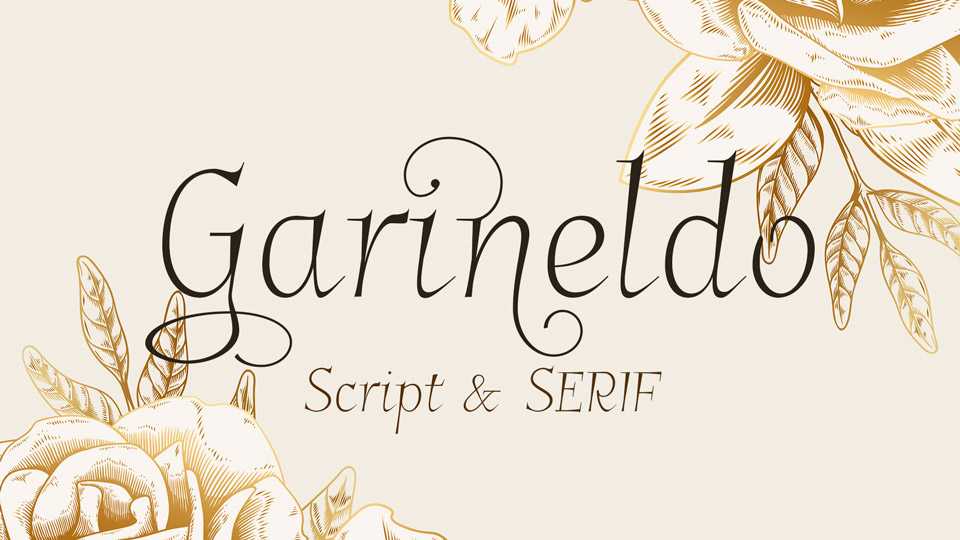
Download Garineldo typeface, a fancy and elegant font family with Script and Serif fonts. Garineldo Script is a decorative Italic with many alternate glyphs, terminal forms and ligatures.
Designer: Grzegorz Luk